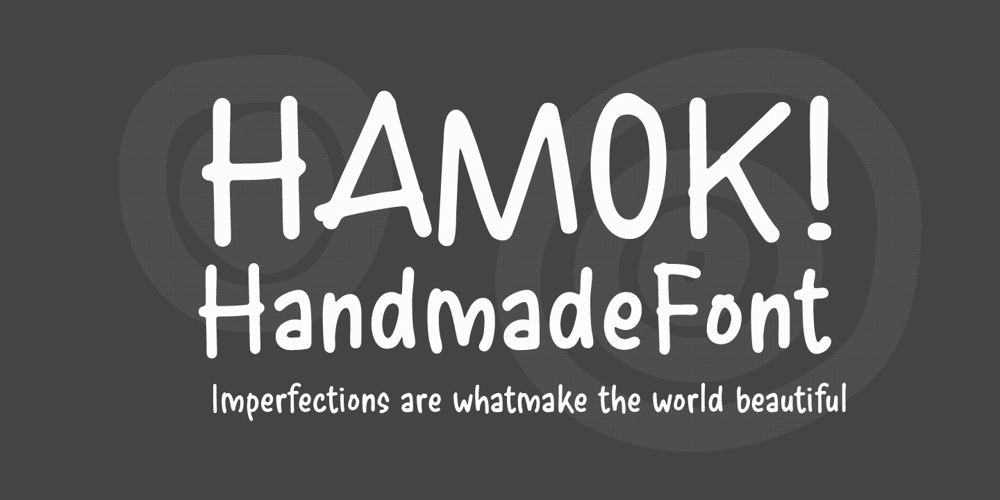
Hamok
Hamok font
Hamok Font Family was designed by Siti Saribanon Nurjannah and published by Cititype. Hamok contains 1 styles and family package options. The Hamok! Handmade Font is a delightful and playful typeface that embraces the beauty of imperfections. Designed to mimic the organic and unique characteristics of hand-drawn lettering, this font adds a human and expressive touch to any project. Its quirky, rounded shapes bring a sense of warmth and friendliness, making it ideal for creative applications like posters, social media graphics, children’s books, and informal branding. The font’s inspiration lies in the idea that imperfections are what make the world beautiful, echoing the belief that everyone can benefit from what nature or society offers. With a full set of letters, numbers, and symbols, Hamok! is versatile and ready to bring a charming, personal feel to your designs.